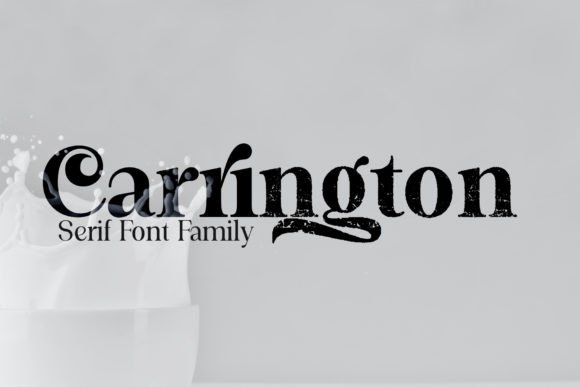
Unveil Carrington Font, the Epitome of Elegance and Sophistication
Immerse yourself in the world of timeless beauty and charm with Carrington Font, a remarkable creation by Groens Studio. This exquisite serif font exudes an air of sophistication and grace, making it the perfect choice for those seeking to add a touch of elegance to their designs.
With its intricate curves and delicate flourishes, Carrington Font captivates the eye and leaves a lasting impression. Its versatility shines through its ability to seamlessly adapt to a wide range of applications, from wedding invitations and stationary art to social media posts and branding projects.
Experience the Joy of Creating with Carrington Font
With Carrington Font, unleash your creativity and embark on a journey of artistic expression. Its graceful lines and elegant structure lend themselves effortlessly to creating stunning wedding invitations that capture the essence of your special day. Envision the joy on your guests' faces as they receive these beautiful invitations, a testament to your impeccable taste and attention to detail.
Beyond wedding invitations, Carrington Font adds a touch of sophistication to stationary art, transforming ordinary cards and letters into works of art. Its timeless appeal makes it an excellent choice for personalizing mugs, t-shirts, and other items, creating unique gifts that are sure to be cherished.
Capture Hearts with Carrington Font
In the realm of social media, Carrington Font stands out as a powerful tool for grabbing attention and captivating audiences. Its eye-catching details and refined aesthetic make it ideal for crafting social media posts that resonate with your followers. Elevate your brand's presence online by incorporating Carrington Font into your marketing materials, ensuring a lasting impression that sets you apart from the competition.
Carrington Font: A Timeless Investment in Artistic Expression
Carrington Font is more than just a font; it's an investment in your creativity and artistic pursuits. Its versatility extends to branding projects, allowing you to establish a strong and cohesive brand identity that reflects your values and aspirations. From logos and business cards to brochures and presentations, Carrington Font adds a touch of professionalism and sophistication that commands attention.